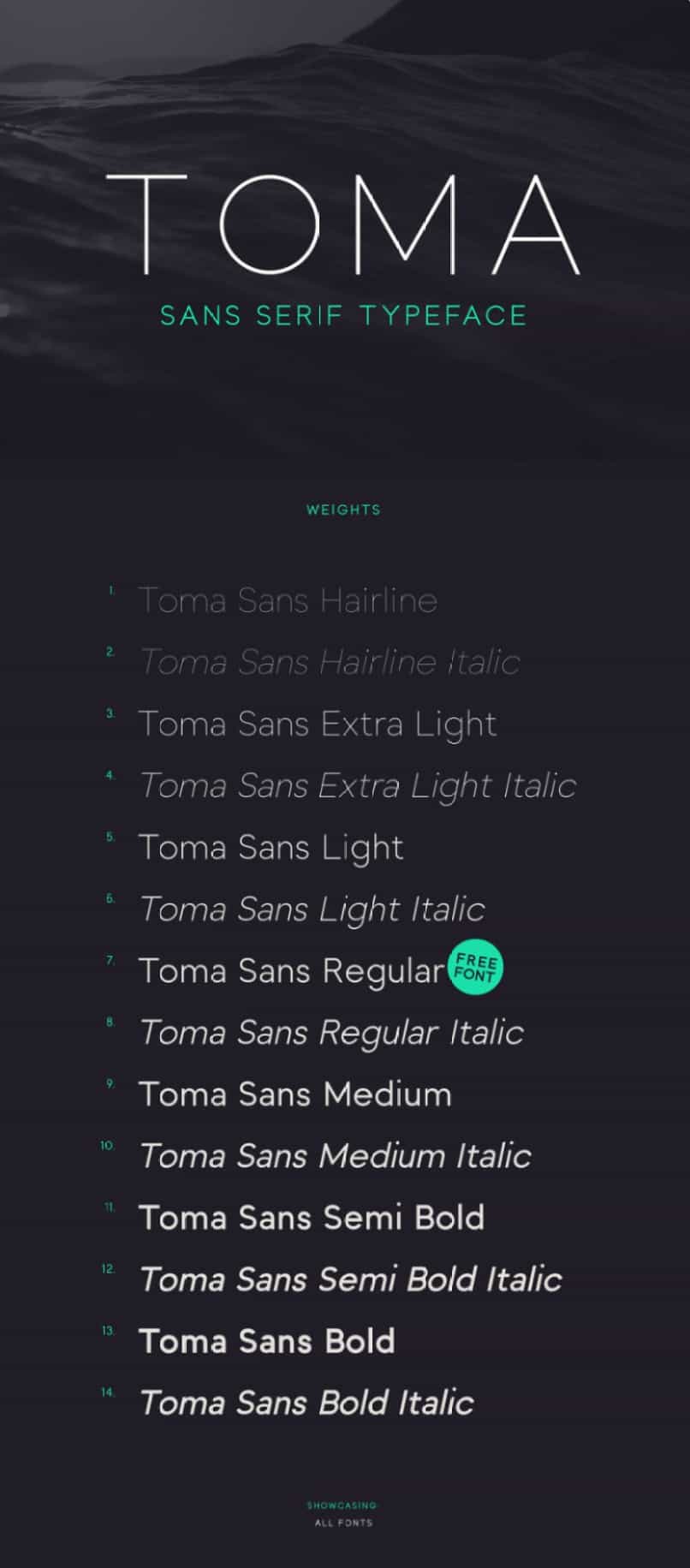
Discover Toma Sans Font Free, part of the Sans Serif collection—a versatile and unique font perfect for adding a personal touch to your projects. Download it for free and enjoy crafting designs with style, from invitations to social media posts. This font is available exclusively for personal use, giving you the freedom to create without limits. Unlock your creativity with Toma Sans Font Free today!
Toma Sans comes in seven weights with matching italics and today’s freebie is Toma Sans Regular for logo type, text typeface and many other uses.